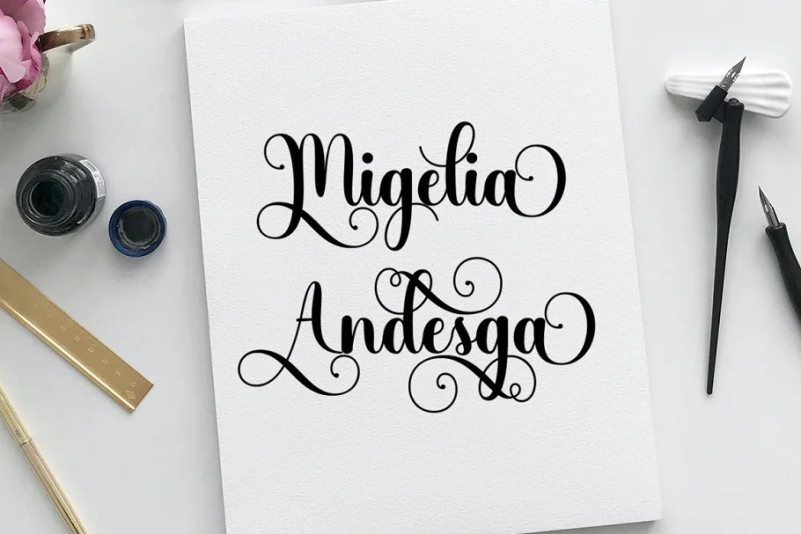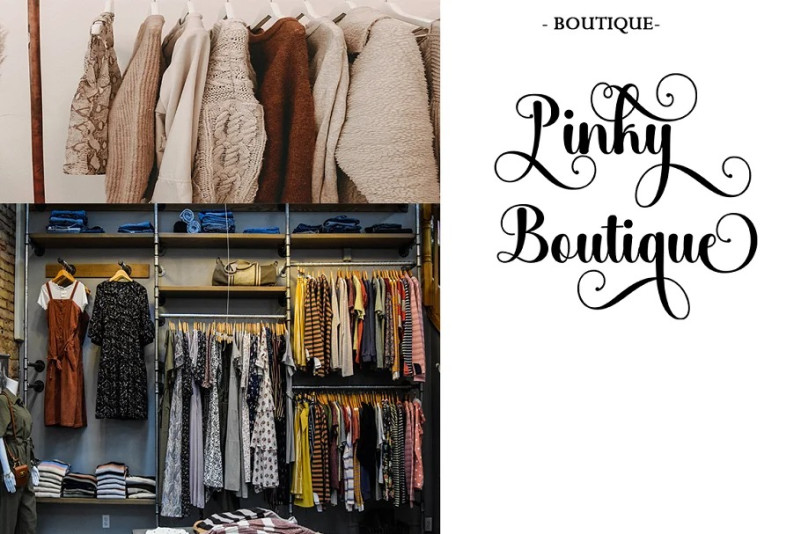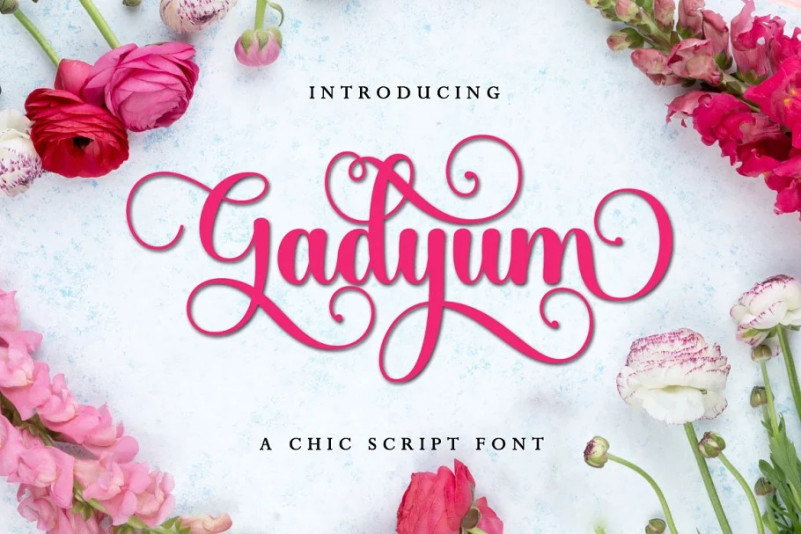
Gadyum Font
Gadyum Font is a font that we designed as much as possible so that it can be used in all design needs, we hope this font can be used widely and widely. This font is used for various purposes. such as logos, product packaging, wedding invitations, branding, headlines, signage, labels, signatures, book covers, posters, quotes and others.